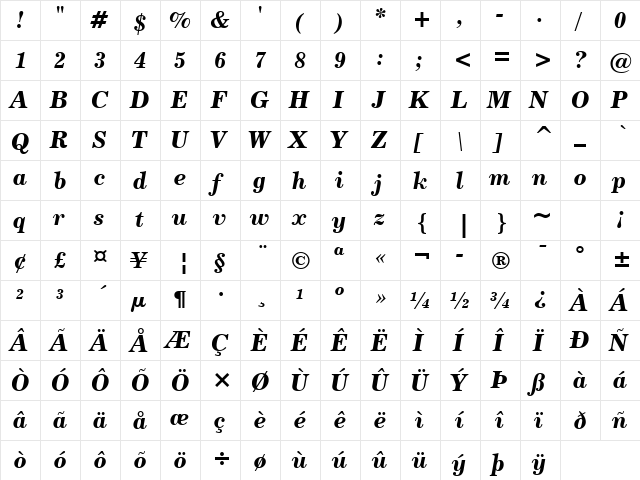
Century731 BT Bold Italic Font Preview
Century731 BT Bold Italic
Design Context for Century731 BT Typeface
Century731 BT offers clean, dependable letterforms without strong stylistic allegiance, making it a practical choice for designers who need flexibility. The slanted form adds forward momentum and visual energy. Its bold stroke weight gives it real presence on the page.